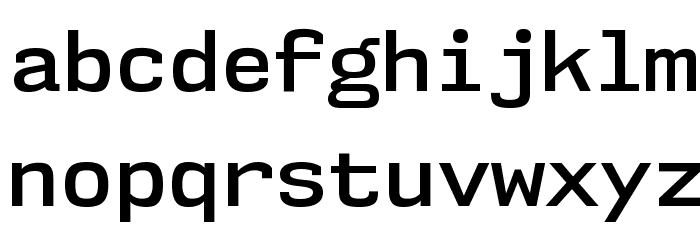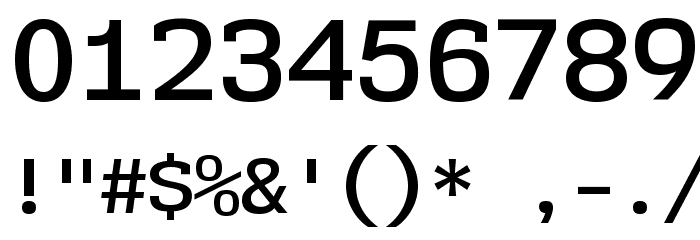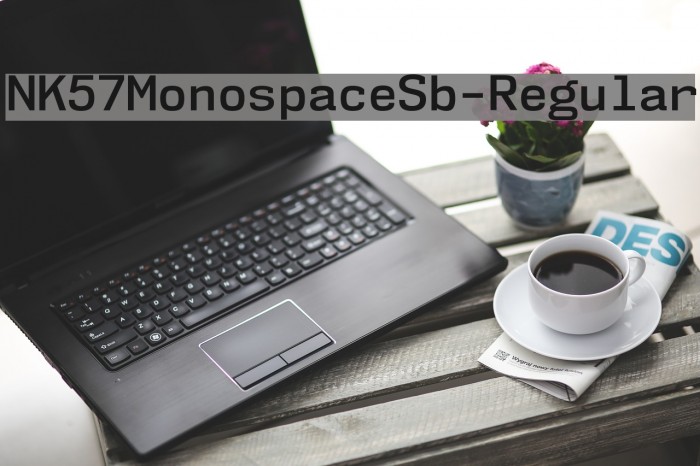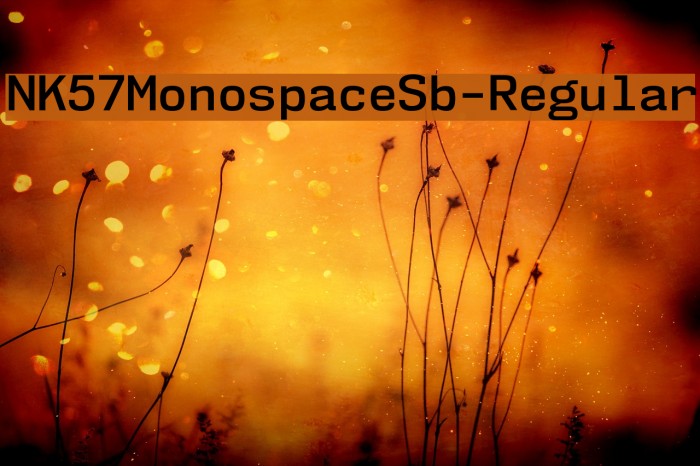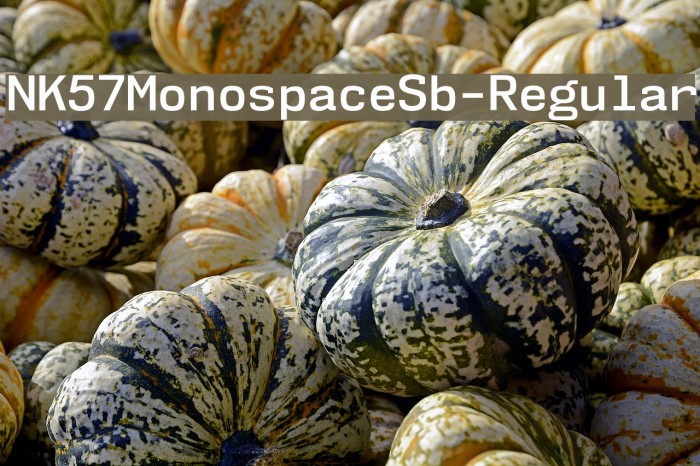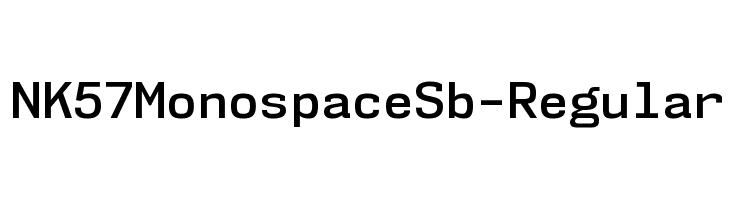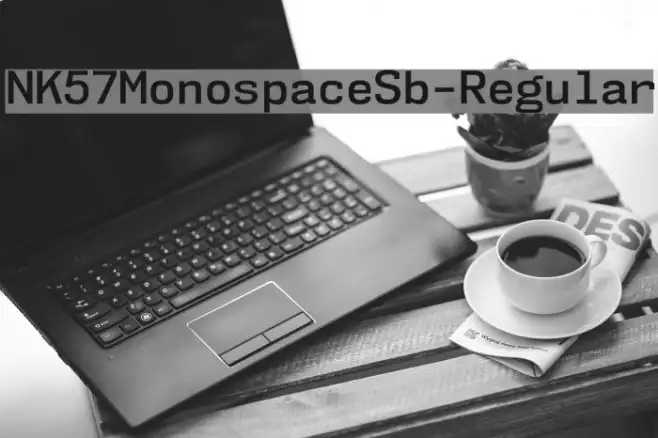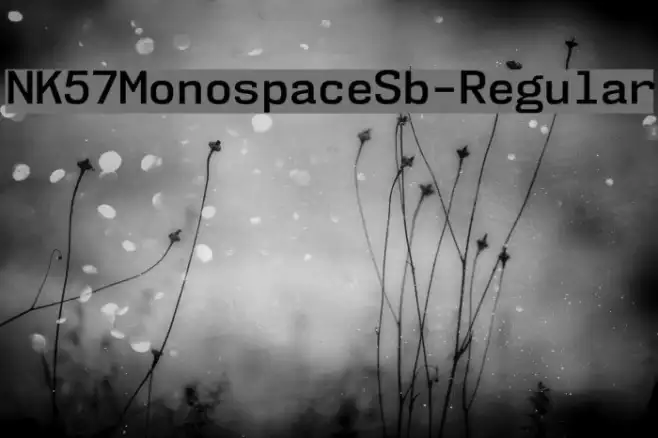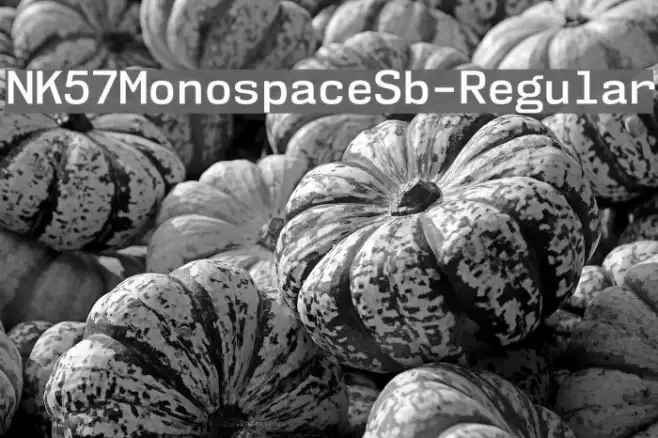
NK57MonospaceSb-Regular Font
This typeface features a clean and structured design, characterized by its monospaced nature where each character occupies the same amount of horizontal space. The letters have a modern and technical appearance, with straight lines and a consistent stroke width that enhances readability. The font includes a full set of uppercase and lowercase letters, numerals, and a variety of special characters, making it versatile for various applications. The uniformity in character width is ideal for coding and tabular data, ensuring alignment and clarity. Its simplicity and precision make it suitable for both digital and print media.
A modern, monospaced typeface with uniform character width and a clean, technical design.
- Proposed Projects: Ideal for coding environments, technical documentation, data tables, and any project requiring precise alignment.
- Use Case: Coding, Technical documentation, Data tables